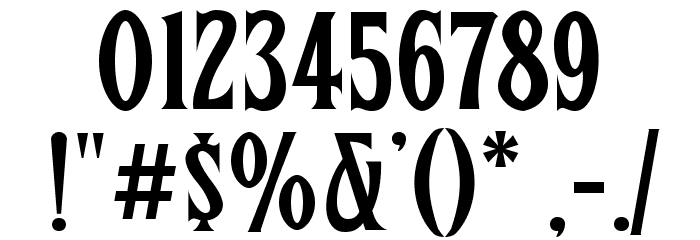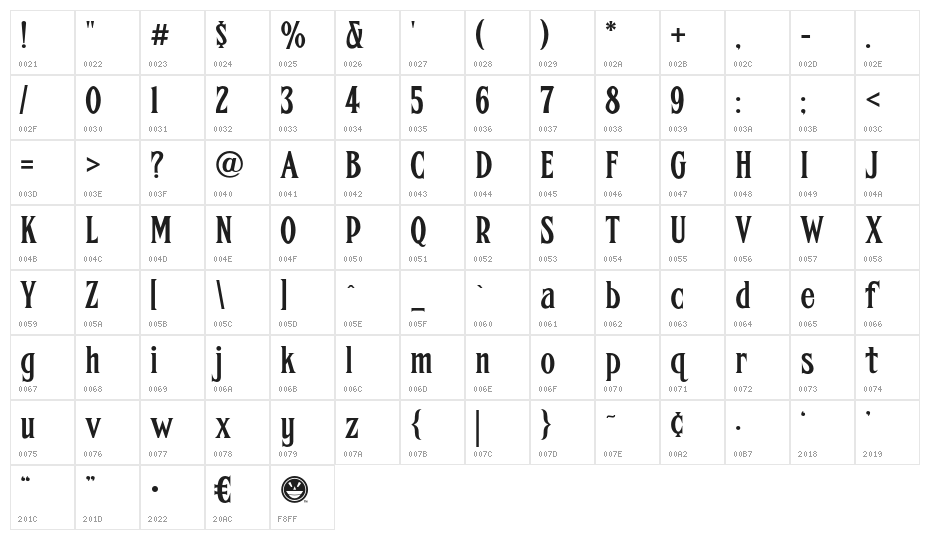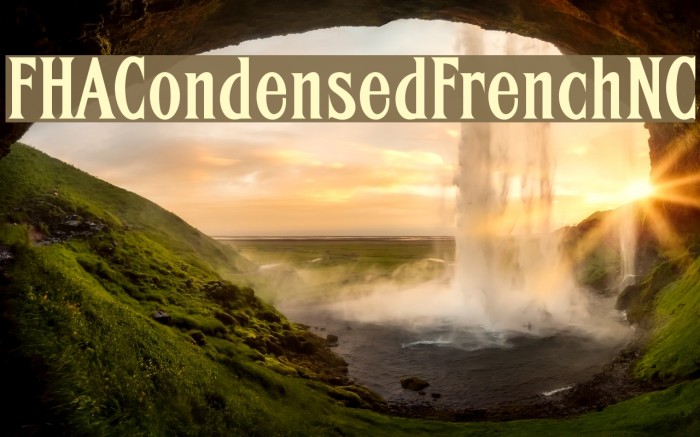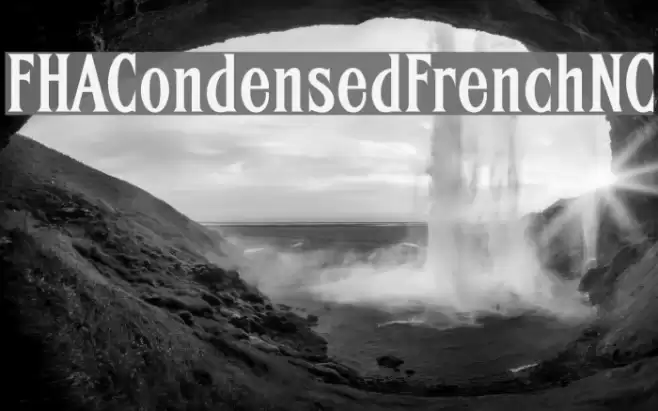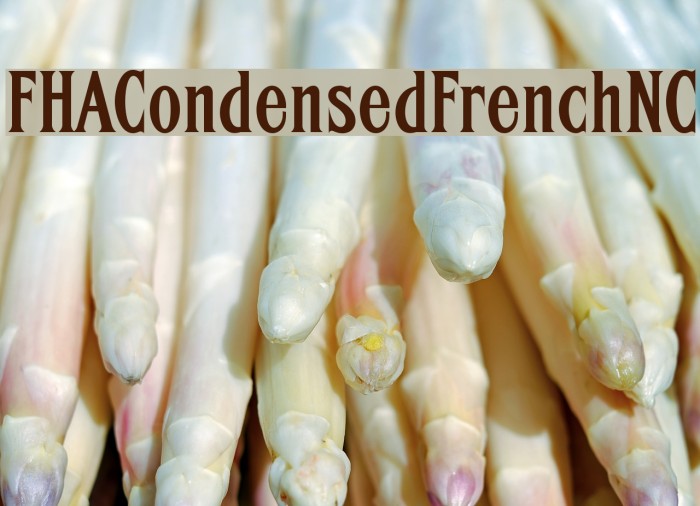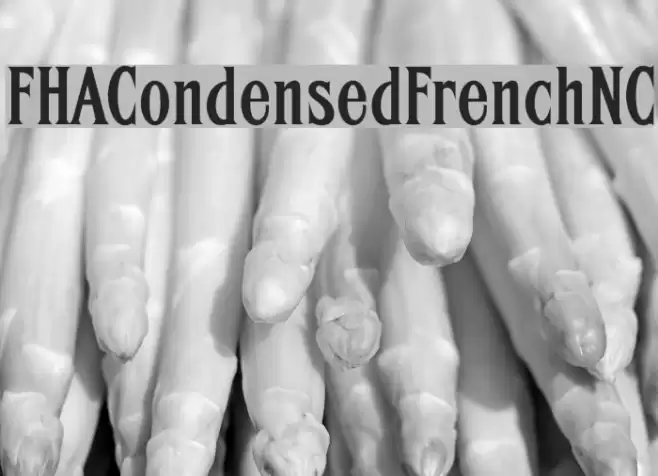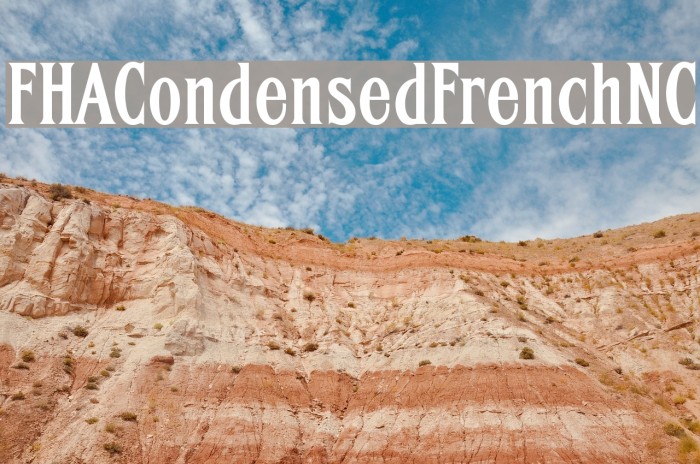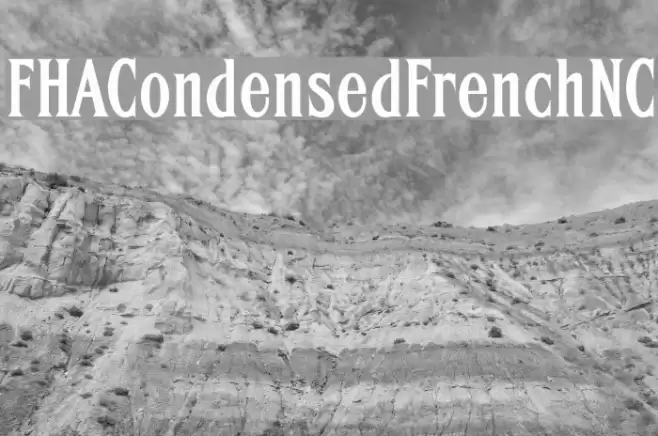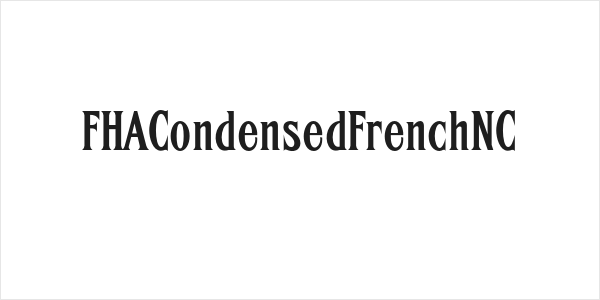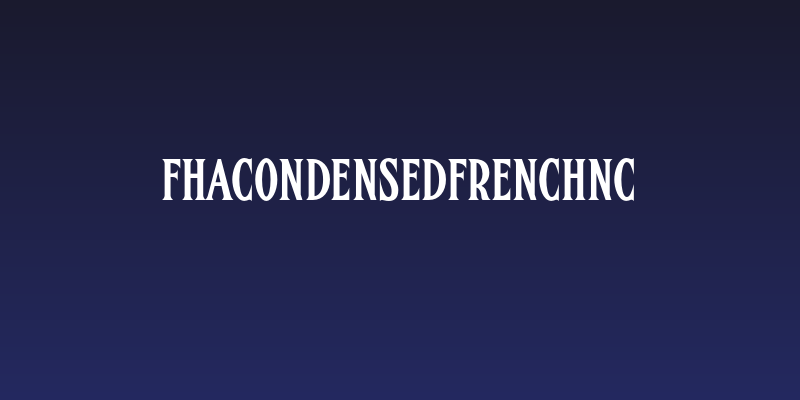
FHACondensedFrenchNC Font
FHACondensedFrenchNC Description
This font exhibits a bold and condensed style with a strong presence, characterized by its thick strokes and narrow letterforms. The uppercase letters are tall and commanding, while the lowercase letters maintain a consistent height, providing a cohesive look. The numerals are clear and easily distinguishable, making them suitable for various applications. Special characters are well-defined, adding versatility to the font. The overall design is reminiscent of classic serif fonts, yet it carries a modern twist with its condensed nature, making it ideal for impactful headlines and attention-grabbing text.
| Proposed Projects | Ideal for headlines, posters, branding, and any project requiring a strong, impactful typeface. |